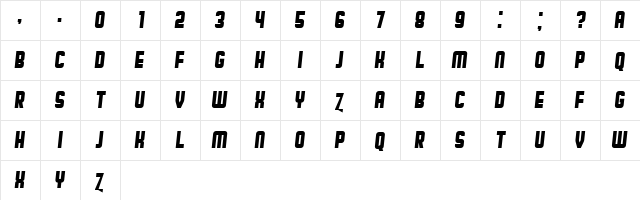
Broadway Flat Italic
Design Context for Broadway Flat Typeface
Broadway Flat is a composed and adaptable typeface that performs quietly and consistently across a wide range of design contexts. Its italic angle brings a sense of urgency and motion to the letterforms.
Pro Tip: Use Broadway Flat for emphasis, pull quotes, and subheadings where its slanted energy can add rhythm to the layout.